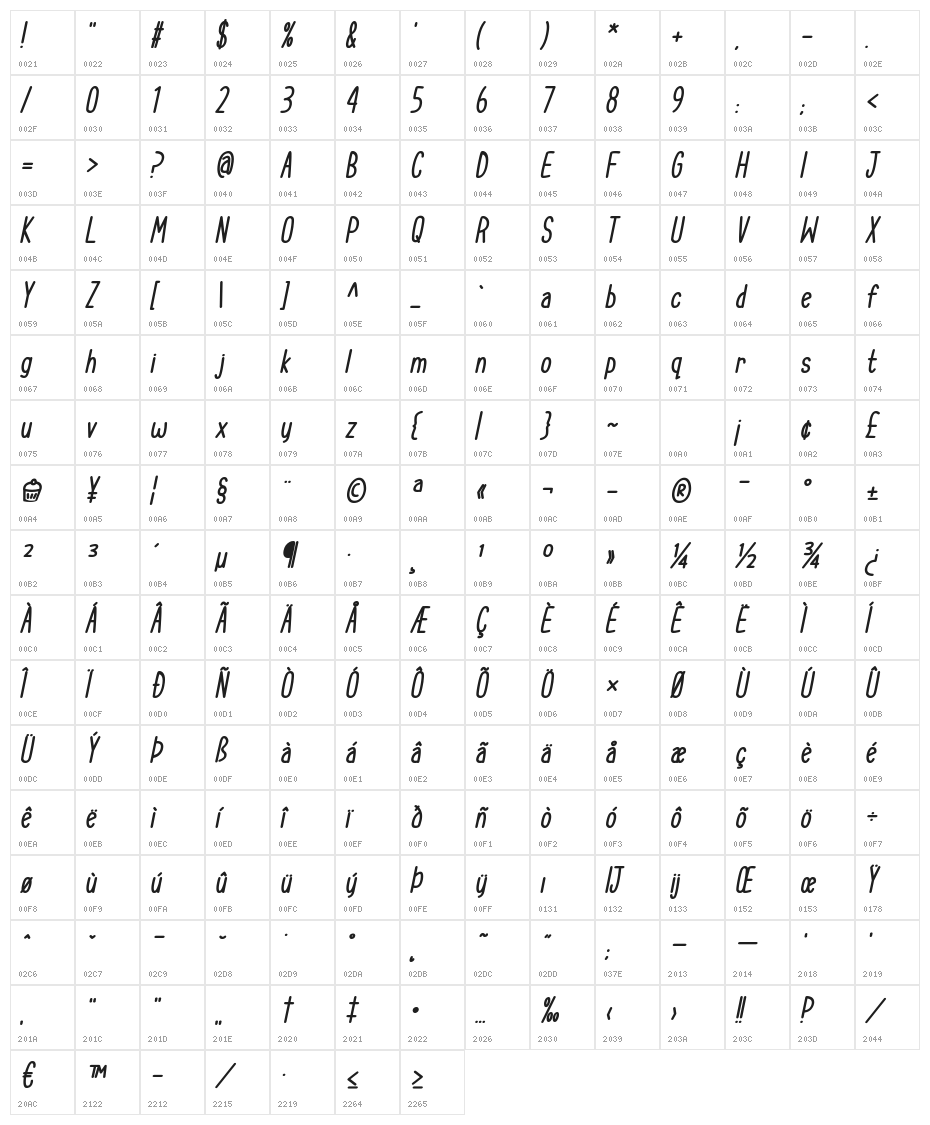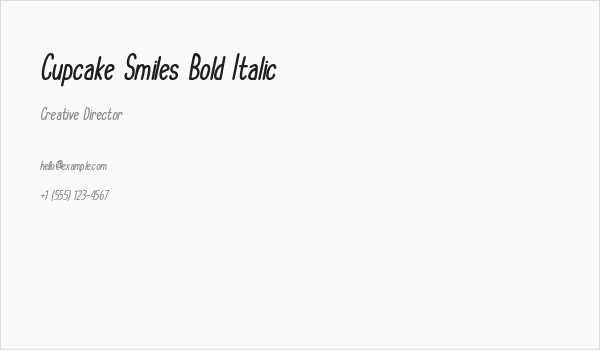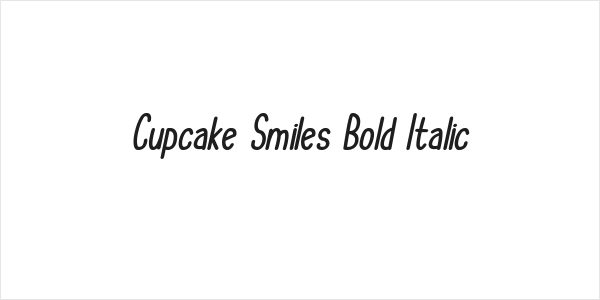
Cupcake Smiles Bold Italic Font
Cupcake Smiles Bold Italic Description
This playful and energetic font features a bold and italic style that gives it a dynamic and lively appearance. The characters are rounded and slightly slanted, creating a sense of movement and fun. The uppercase and lowercase letters maintain a consistent flow, while the numbers and special characters are designed to complement the overall style. The font's boldness ensures readability, making it suitable for various creative projects.
Overall StylePlayful
Proposed ProjectsIdeal for children's books, playful branding, party invitations, and creative posters.